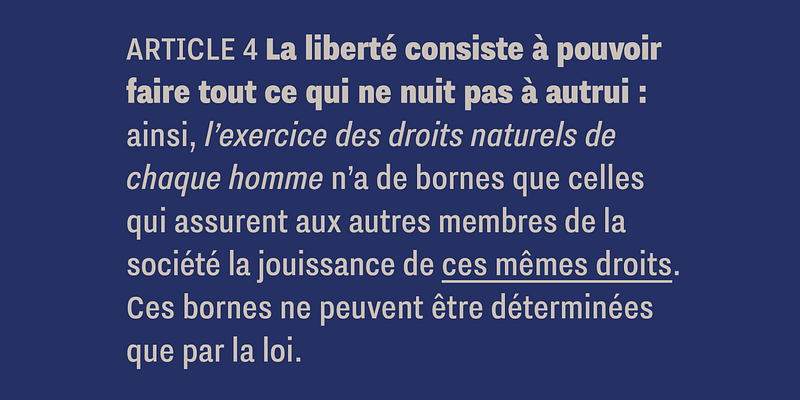
Nitti Grotesk Condensed Font Free Download is a modern, condensed sans-serif typeface that offers both functionality and style. Featuring clean lines, geometric forms, and a compact design, this font is ideal for projects where space is at a premium without sacrificing readability or visual appeal. Perfect for headlines, posters, websites, logos, and any design where maximizing space is key.
Nitti Grotesk Condensed Font Free Download combines the versatility of a geometric sans-serif with the practicality of a condensed design. Its high legibility and modern aesthetic make it ideal for both display and body text, especially in environments with limited space, such as mobile interfaces and advertising.
Whether you are working on digital designs, branding, or editorial layouts, Nitti Grotesk Condensed offers a sleek and functional solution for any project.